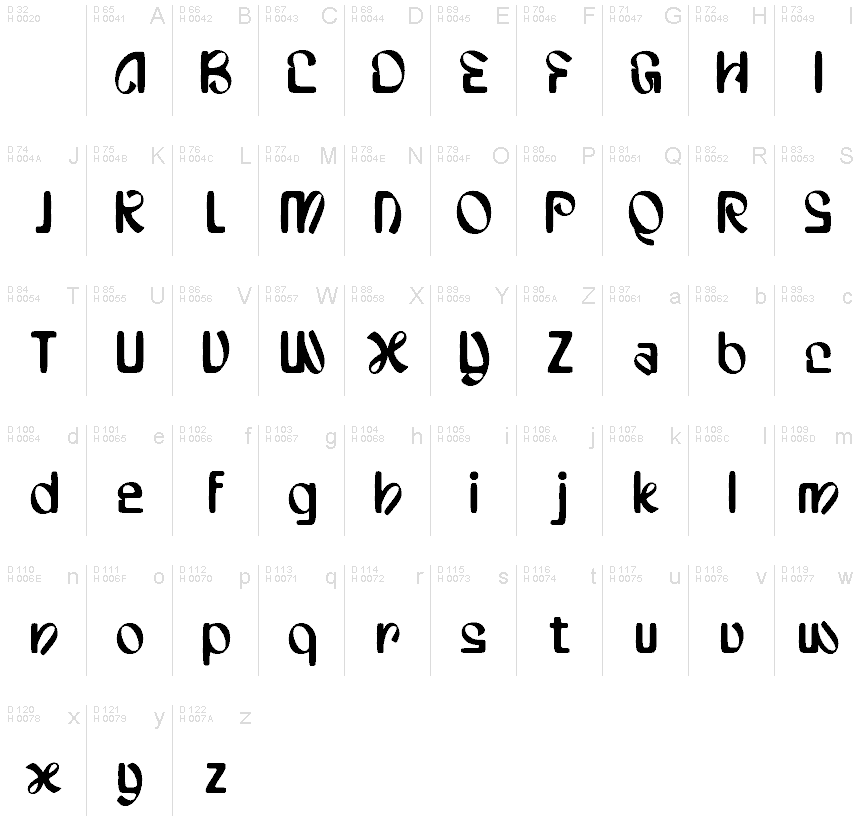
CSHaloraDrawn-Regular Demo
CS Halora by Craft Supply Co. is a free display font designed for contemporary use. The organic typeface exudes an artistic flair through the curious shapes of its characters and playful connections between them, often constructed with geometric elements. Each letter delivers a unique modern composition tailored without sacrificing the harmony of the visual presence.
CS Halora Drawn Demo